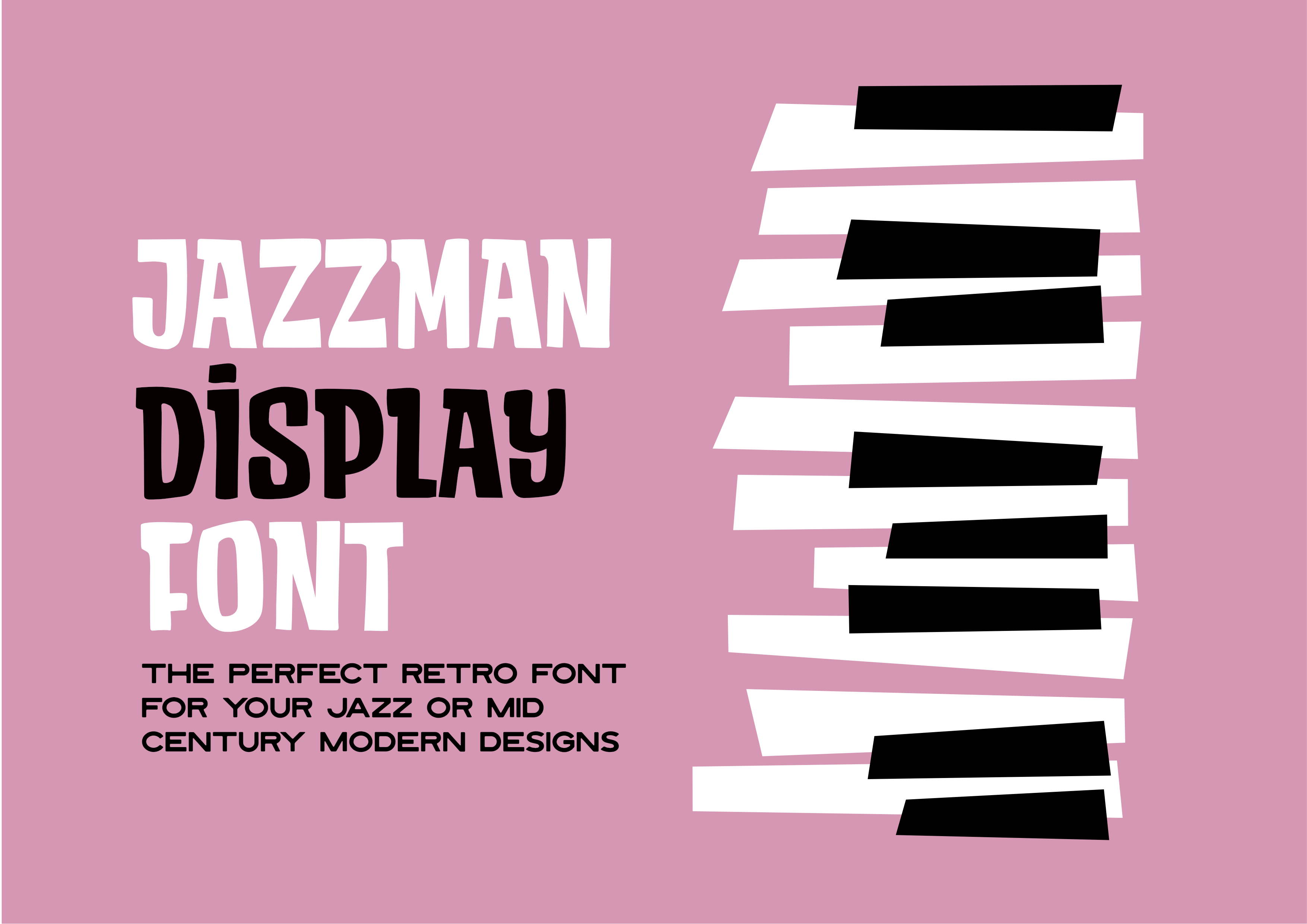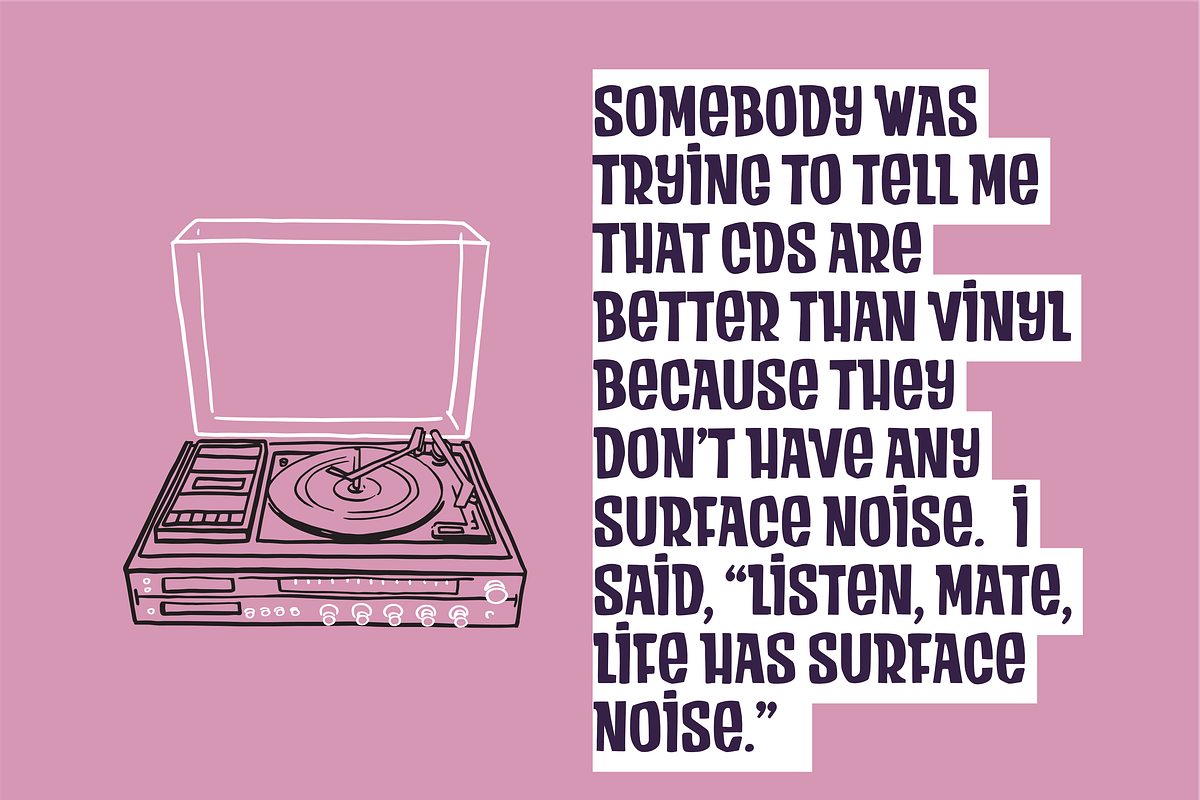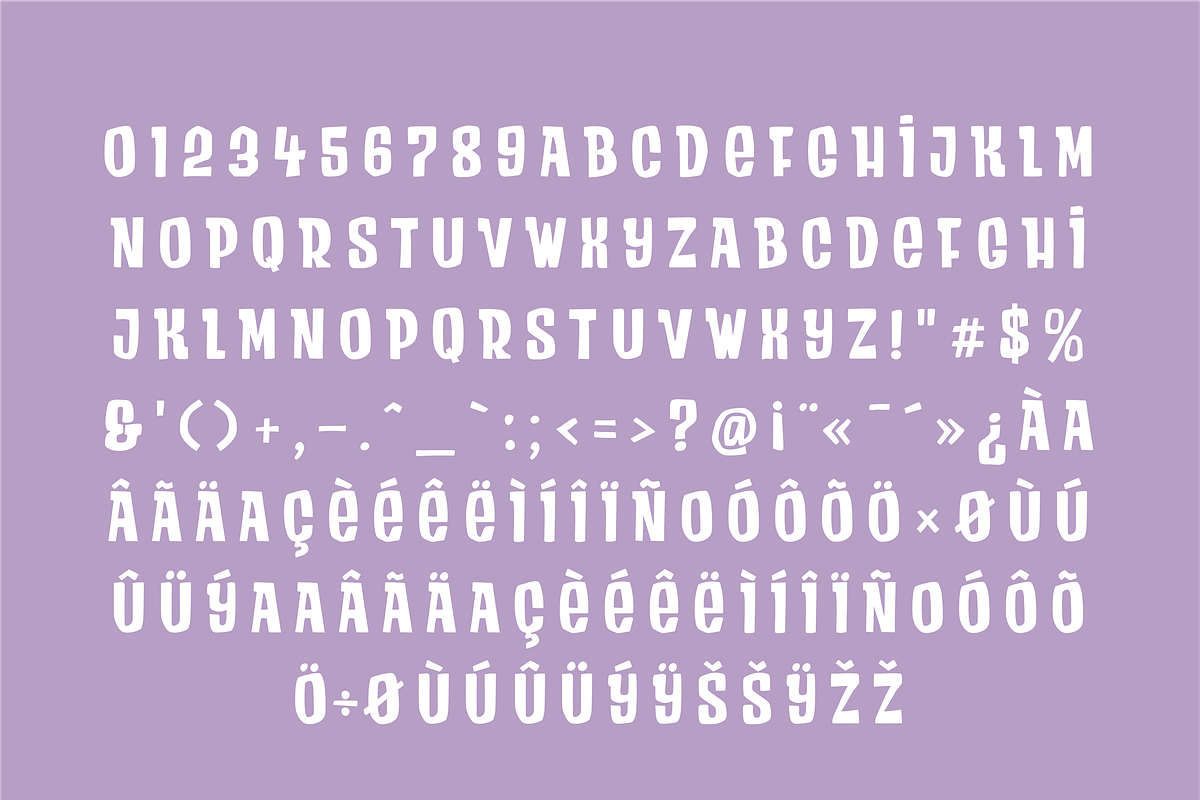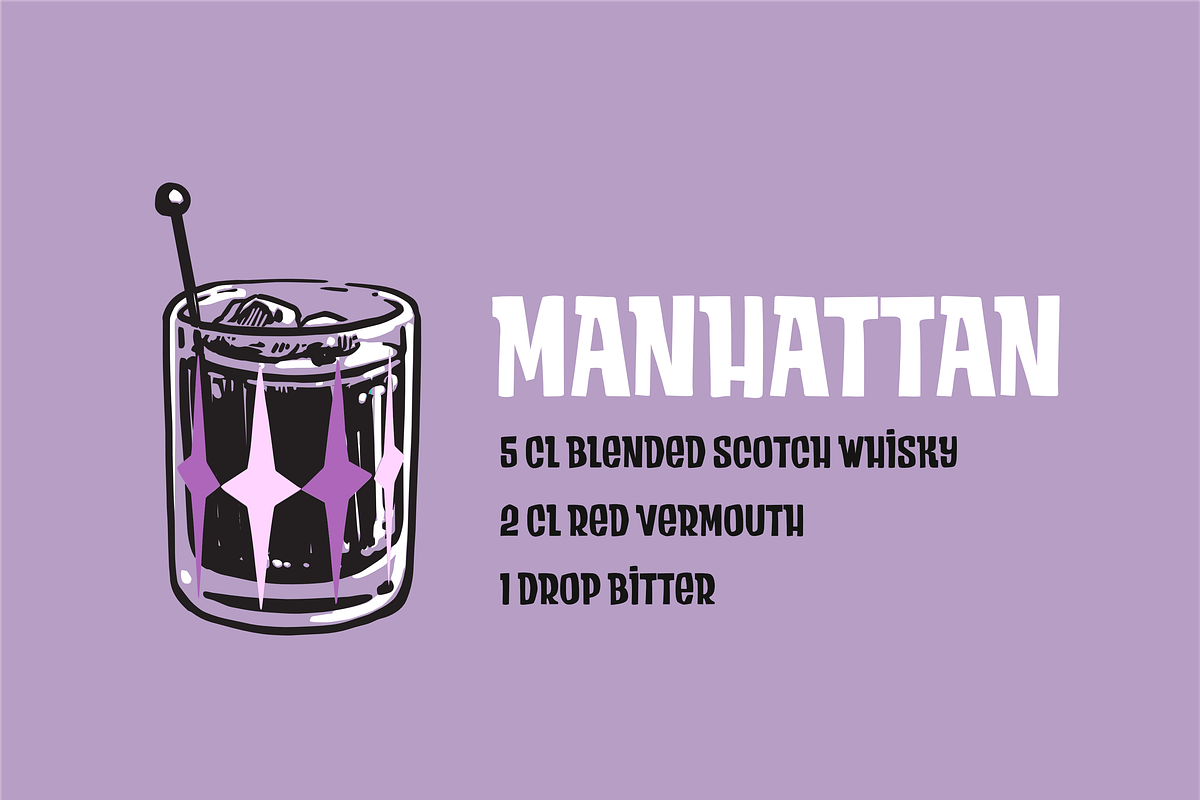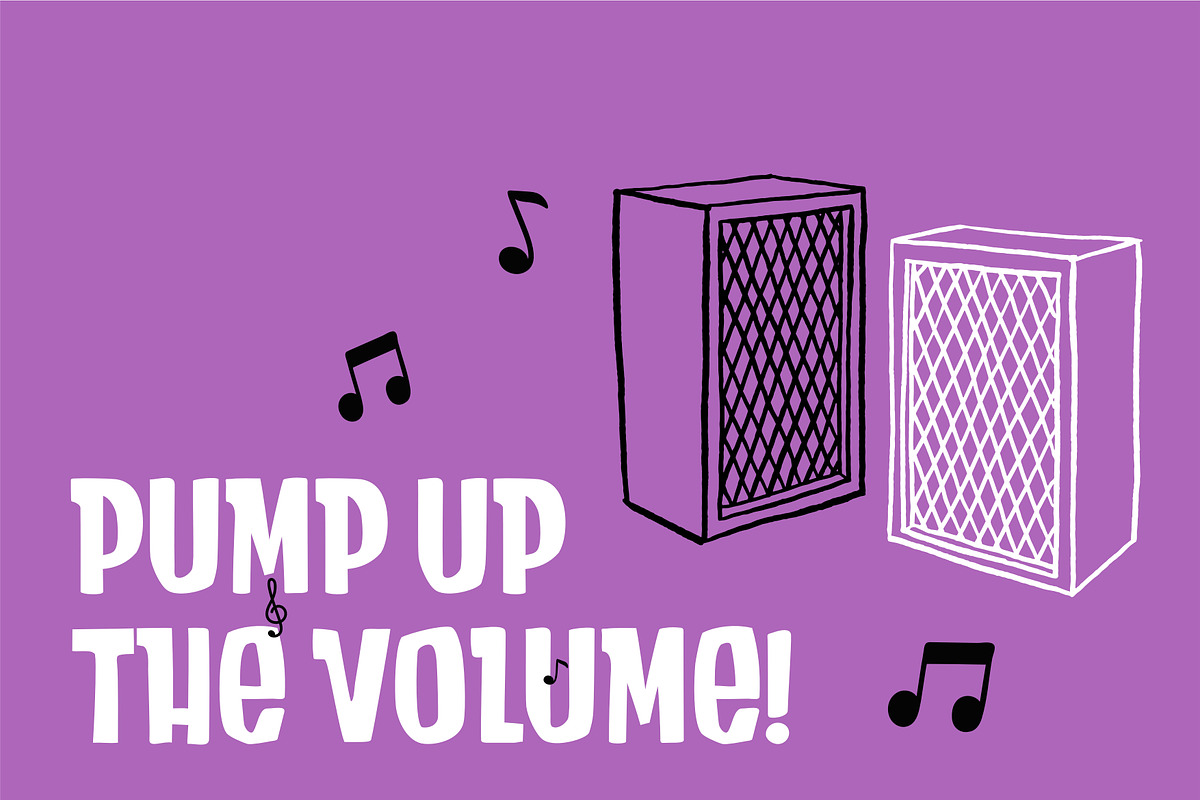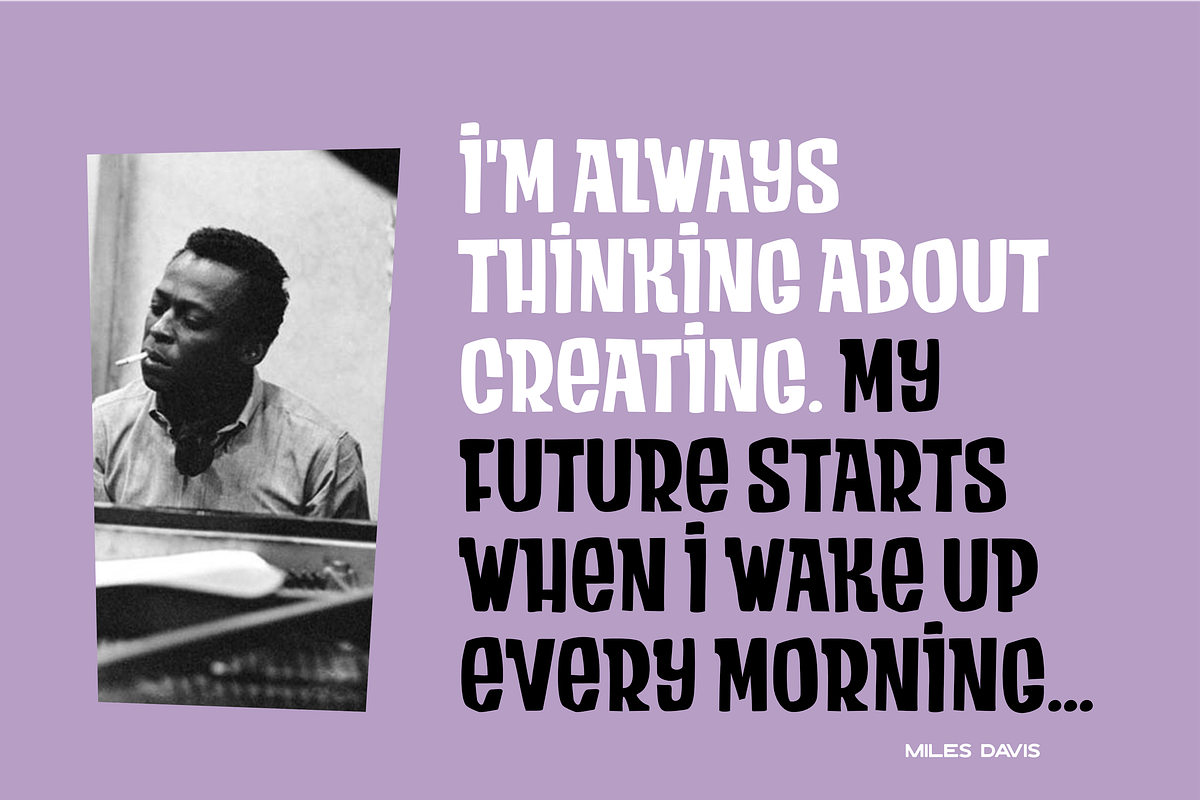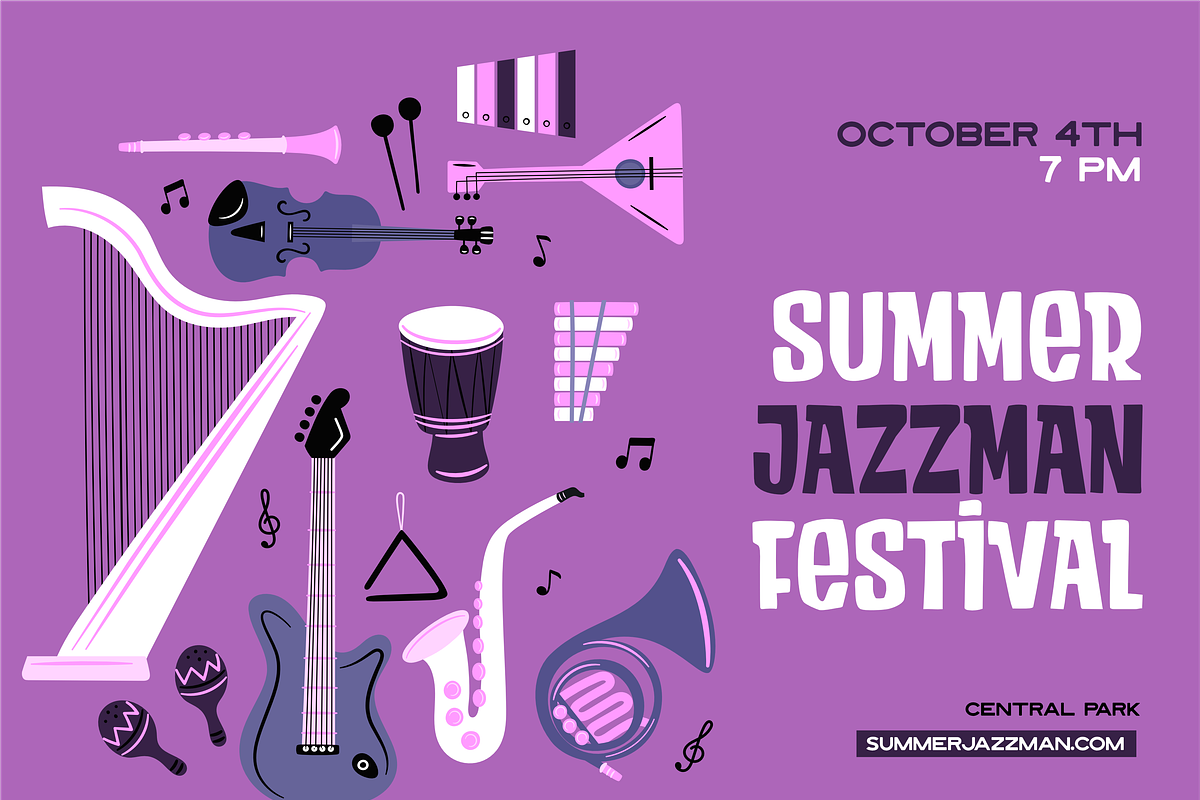
Jazzman Display Font
I am a big fan of Jazz and of Mid Modern Century design and I already created a few fonts about that style, but this time I wanted to create something a bit more functional that could many uses in a vintage way. So here is Jazzman. Inspiration comes from old 50/60s lettering, mostly from the US, with a Hand Drawn style. This is something important for me: you can see this is hand made. It is not perfect, it is human, and this is my thing.